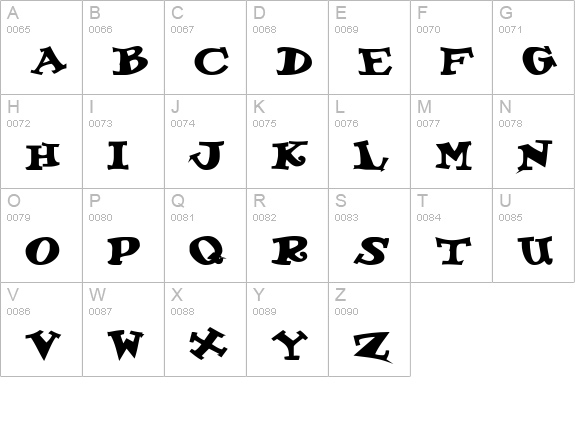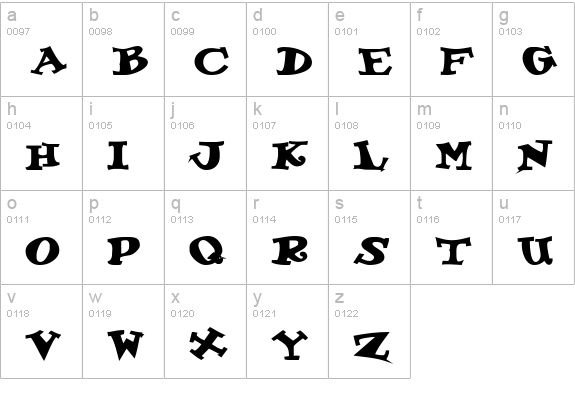
KoolKapsDisplayHvy Bold Font Details
KoolKapsDisplayHvy Bold is a strong, high-contrast variant in the KoolKapsDisplayHvy typeface family \xE2\x80\x94 well suited to headlines, attention-grabbing titles, and strong calls-to-action.
KoolKapsDisplayHvy Bold font is a striking and impactful display typeface that demands attention. With its bold and heavy letterforms, this font is perfect for creating eye-catching headlines, titles, and posters. The strong and commanding presence of KoolKapsDisplayHvy Bold makes it a versatile choice for various design projects. And the best part? KoolKapsDisplayHvy Bold font is available for free download at FontsMarket.com! Whether you're a designer looking to add a bold touch to your projects or a business owner in need of a standout logo, this font is sure to make a statement. Don't miss out on the opportunity to enhance your designs with the powerful presence of KoolKapsDisplayHvy Bold font, now easily accessible for free.